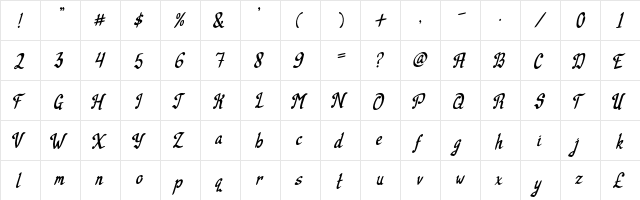
Camille Script
| Style | Script |
| Foundry | TGIF |
| Designer | TGIF |
Design Context for Camille Typeface
Camille flows with the natural rhythm of handwritten lettering, making it ideal for designs that call for warmth and personal expression.
Font Pairing: Combine Camille with a simple geometric sans for maximum contrast — the tension between flowing curves and clean structure is a classic typographic pairing.
Pro Tip: Pair Camille with a clean sans-serif for supporting text. The contrast between fluid script and geometric structure creates an elegant typographic hierarchy.